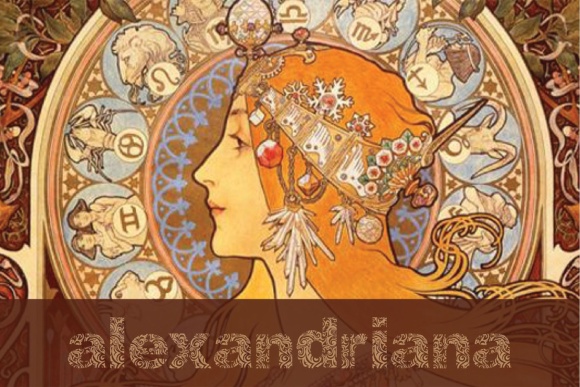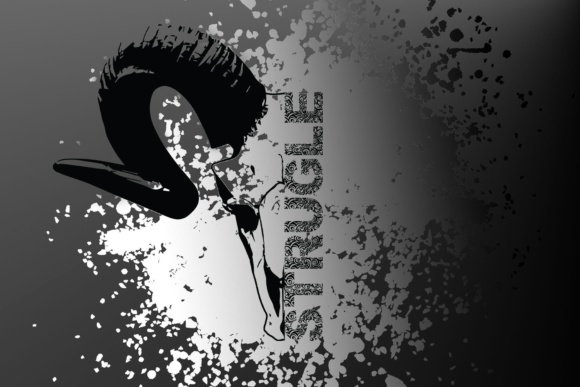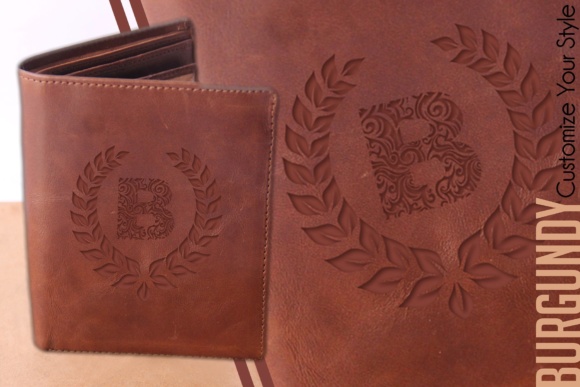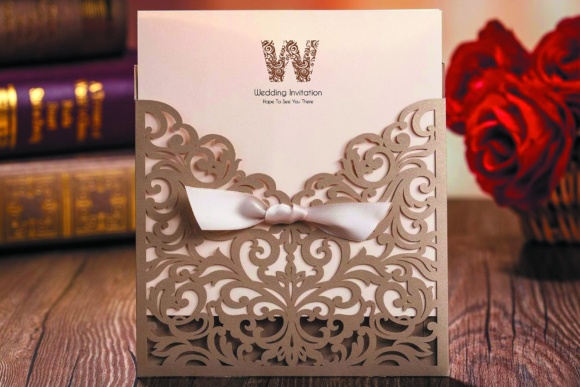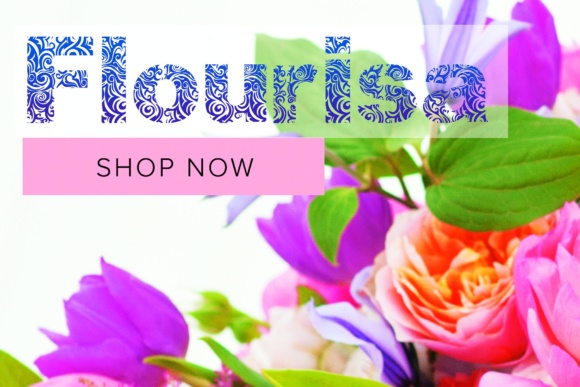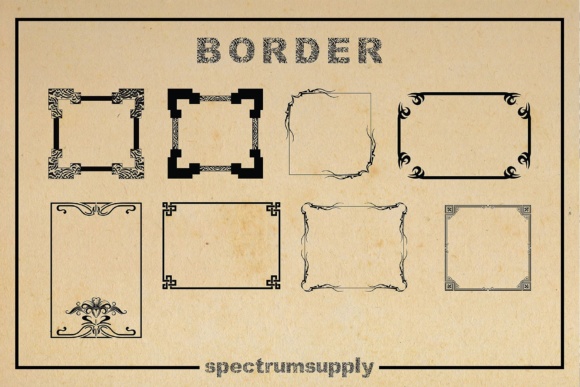
Unleash Your Creativity with Atribalize Font: A Tribal-Art Nouveau Masterpiece
Are you a designer or crafter looking for a unique and captivating font to elevate your creative projects? Look no further than Atribalize, a stunning decorative font that seamlessly blends tribal texture with an Art Nouveau touch. This bold font is perfect for adding a detailed and ornate appeal to your designs, making it an excellent choice for a wide range of applications.
The Perfect Fusion of Tribal and Art Nouveau Styles
Atribalize Font is a masterful combination of tribal and Art Nouveau styles, resulting in a truly distinctive and eye-catching typeface. The tribal texture adds a raw, organic feel to the font, while the Art Nouveau influence brings a touch of elegance and sophistication. This unique fusion makes Atribalize perfect for designers who want to add a bit of edge to their work without sacrificing refinement.
Key Features of Atribalize Font
- Tribal Texture: The font’s tribal texture gives it a distinctive, handmade feel that’s perfect for designs that require a bit of grit and authenticity.
- Art Nouveau Influence: The Art Nouveau touch adds a level of sophistication and elegance to the font, making it suitable for a wide range of applications, from luxury branding to high-end packaging.
- Bold and Ornate: Atribalize is a bold font that’s perfect for making a statement. Its ornate details and intricate patterns make it ideal for designs that require a bit of drama and flair.
- Highly Versatile: Atribalize can be used for a wide range of projects, from logos and branding to packaging, posters, and more.
Use Cases for Atribalize Font
Atribalize Font is an incredibly versatile typeface that can be used for a wide range of projects, including:
- Logos and Branding: Use Atribalize to create a bold and memorable logo that sets your brand apart from the competition.
- Packaging Design: Add a touch of luxury and sophistication to your packaging designs with Atribalize’s elegant and ornate details.
- Poster Design: Create eye-catching posters that demand attention with Atribalize’s bold and dramatic lettering.
- Stationery and Invitations: Use Atribalize to add a touch of elegance and sophistication to your stationery and invitations.
Tips for Using Atribalize Font
To get the most out of Atribalize Font, here are a few tips to keep in mind:
- Use it sparingly: Due to its bold and ornate nature, it’s best to use Atribalize sparingly to avoid overwhelming the design.
- Pair it with a simple font: Pair Atribalize with a simple font to create a striking contrast that adds visual interest to your design.
- Experiment with colors: Atribalize looks great in a variety of colors, so don’t be afraid to experiment and find the perfect hue for your design.
Atribalize Font is a stunning decorative font that offers a unique and captivating blend of tribal texture and Art Nouveau elegance. Its bold and ornate details make it perfect for designers and crafters who want to add a touch of drama and flair to their creative projects. With its versatility and range of use cases, Atribalize is an excellent addition to any designer’s toolkit.